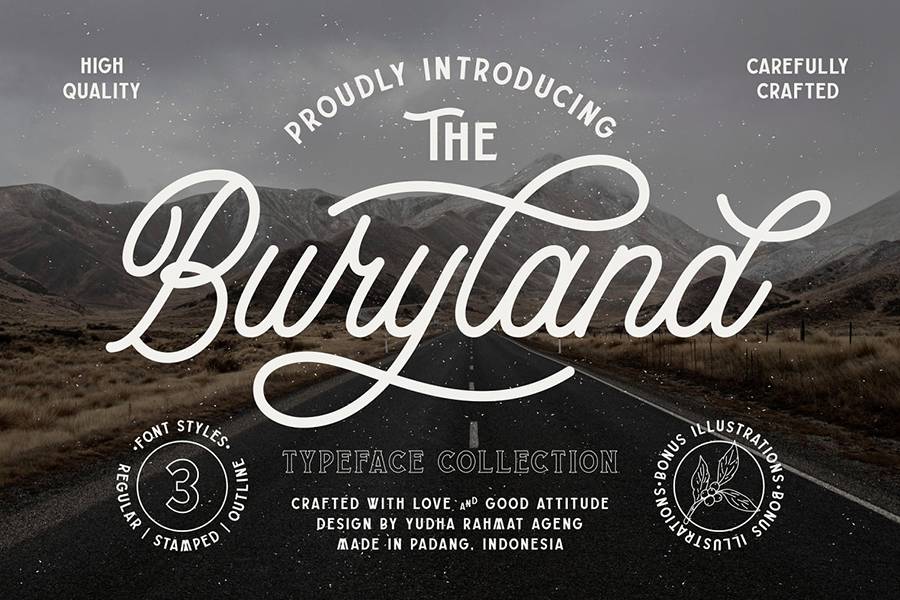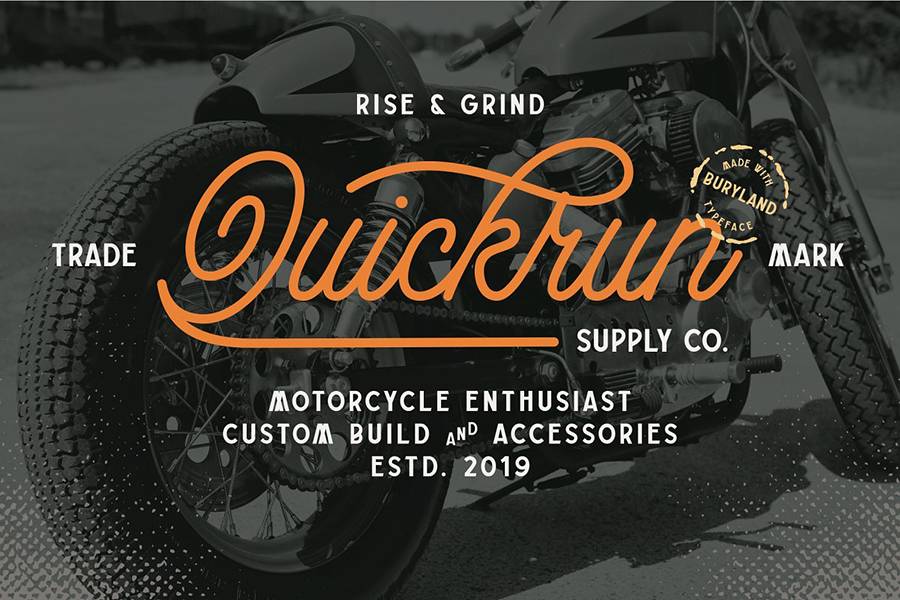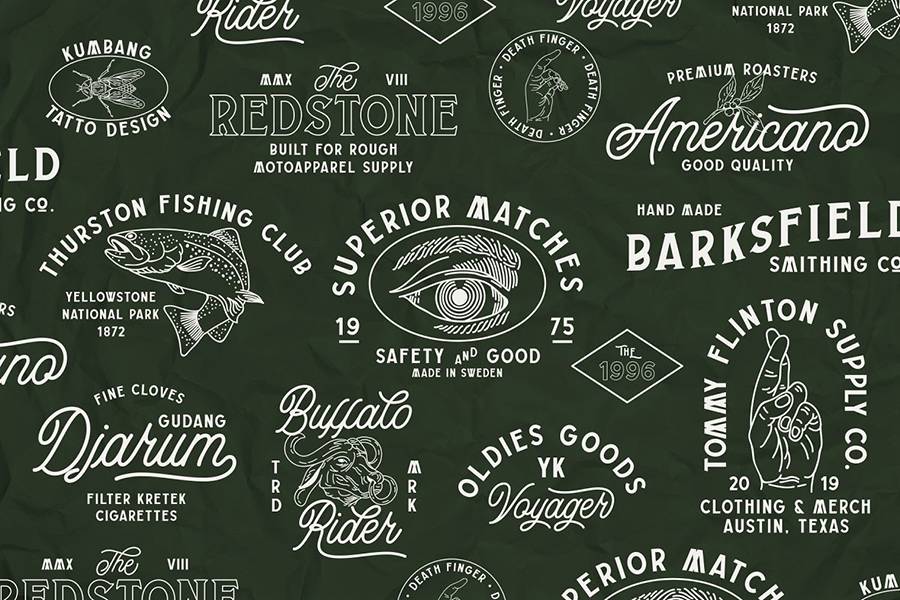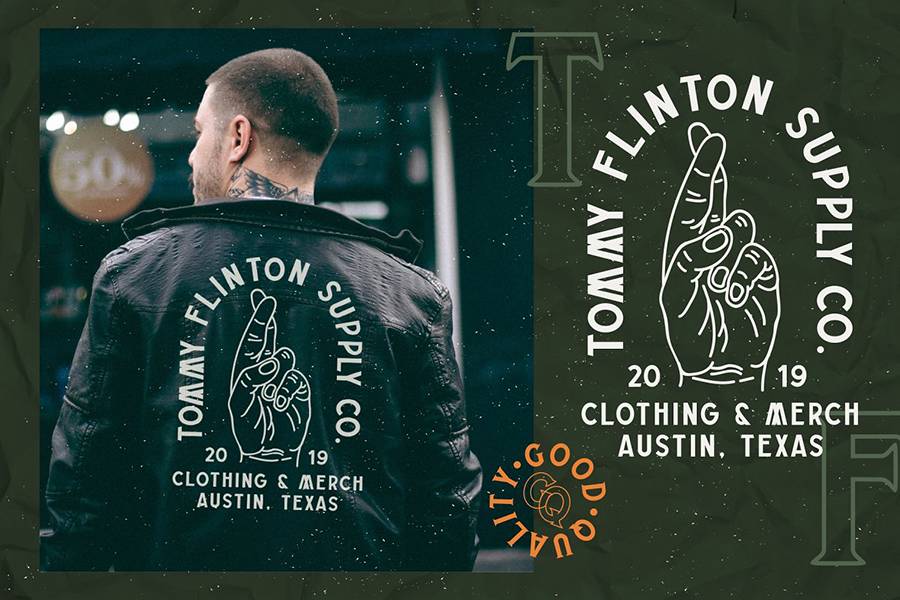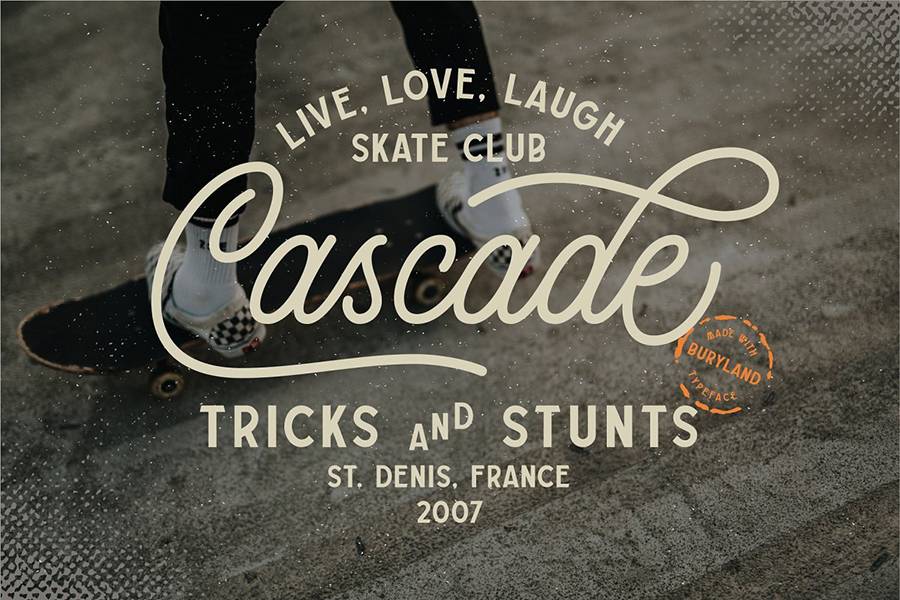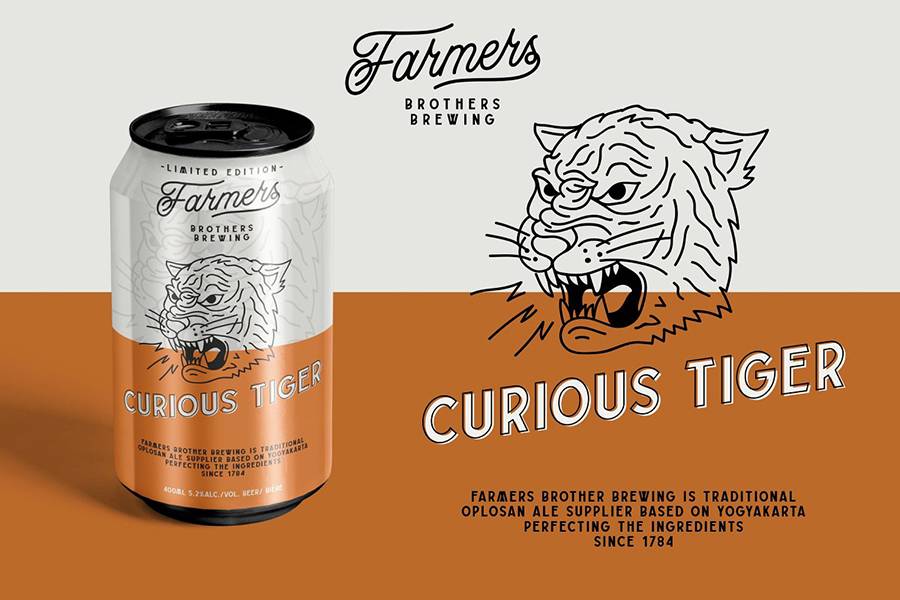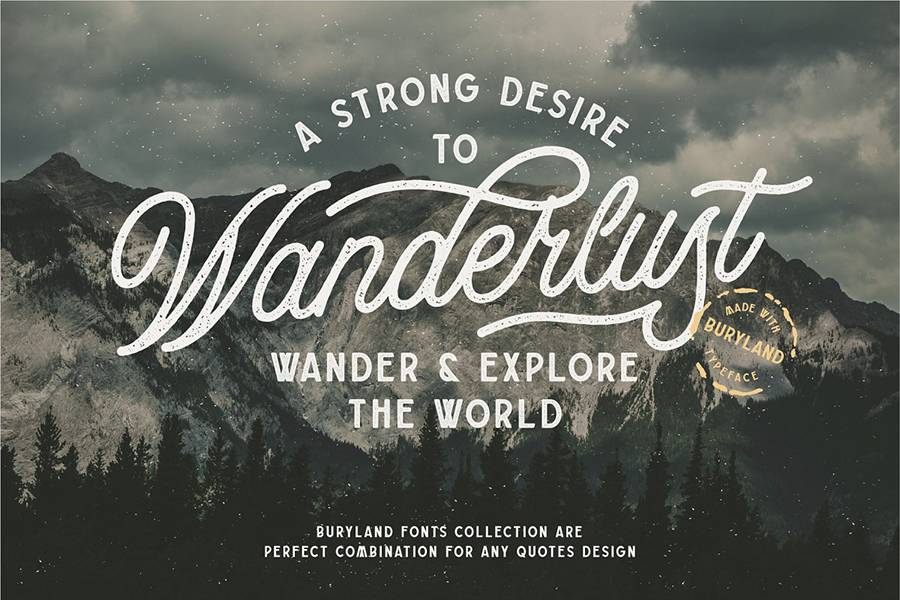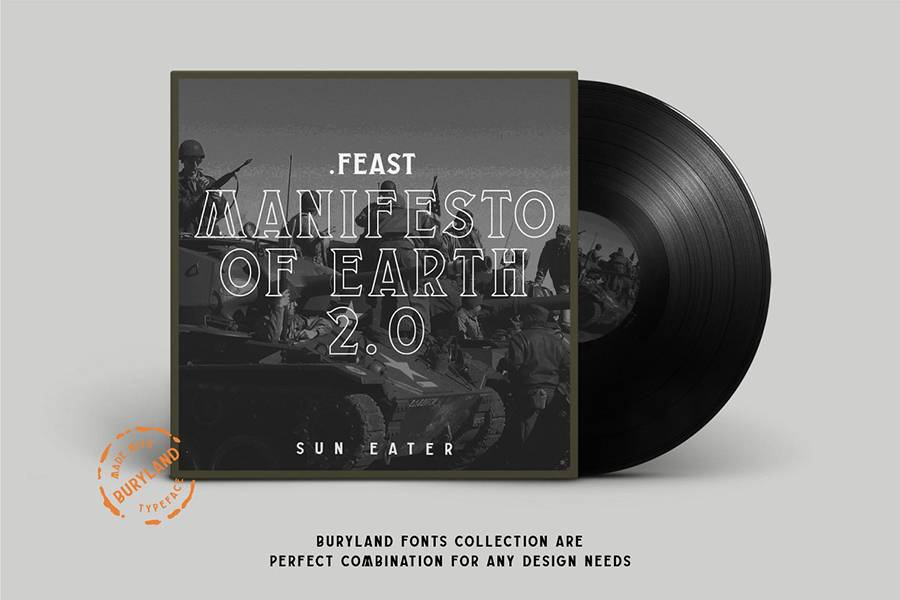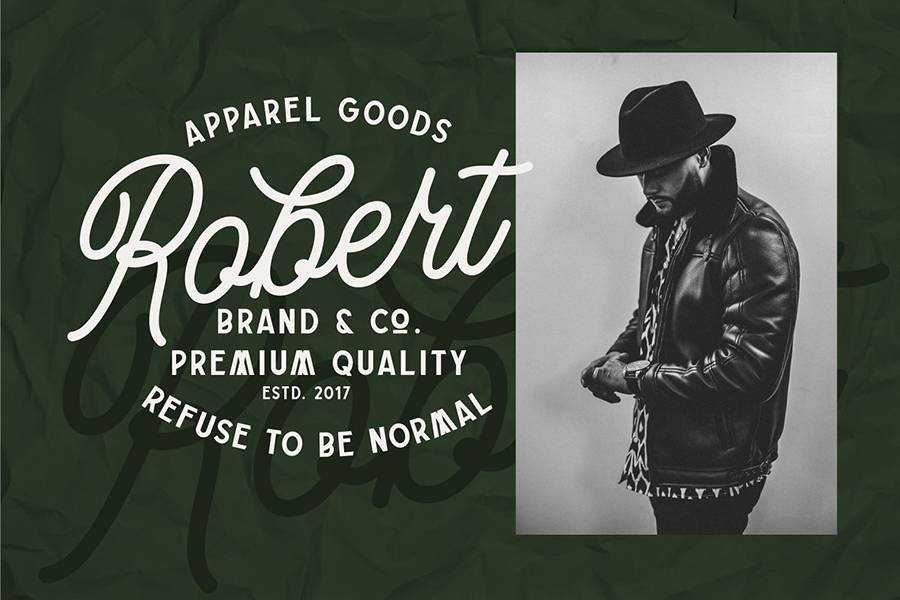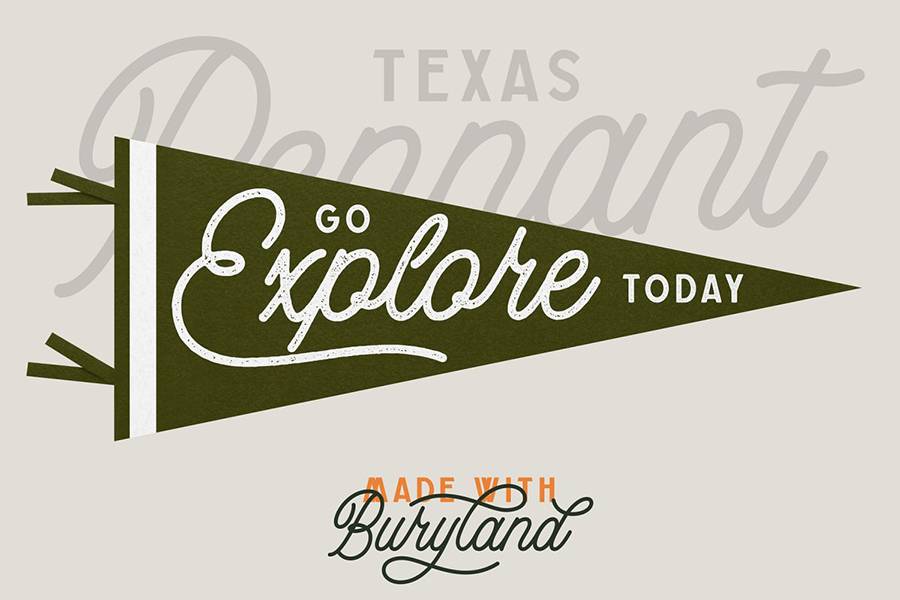
Buryland Vintage Monoline Script
Buryland Vintage Monoline Script is Handmade Script, Sans, Serif inspired by Retro and Modern hand lettering style, so you can use this font into any style of your design.